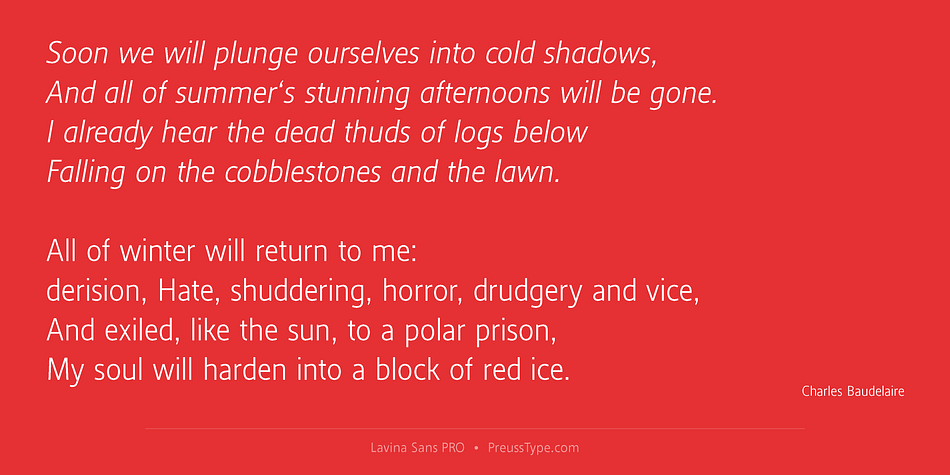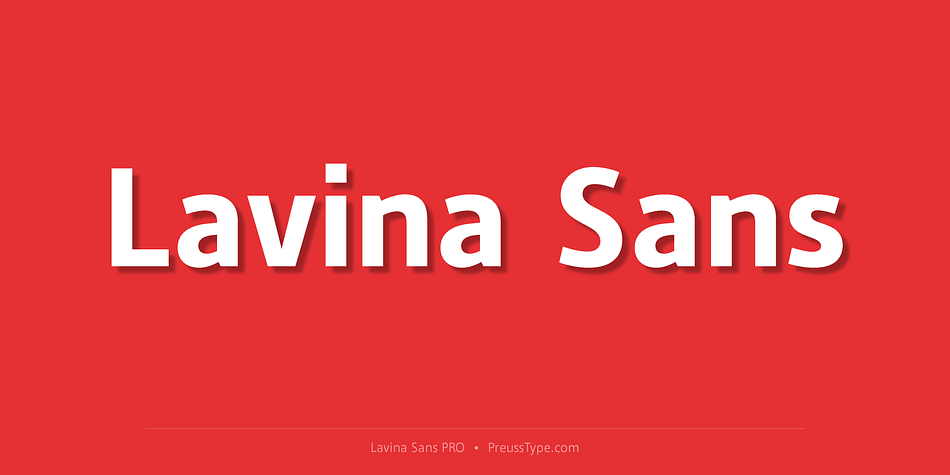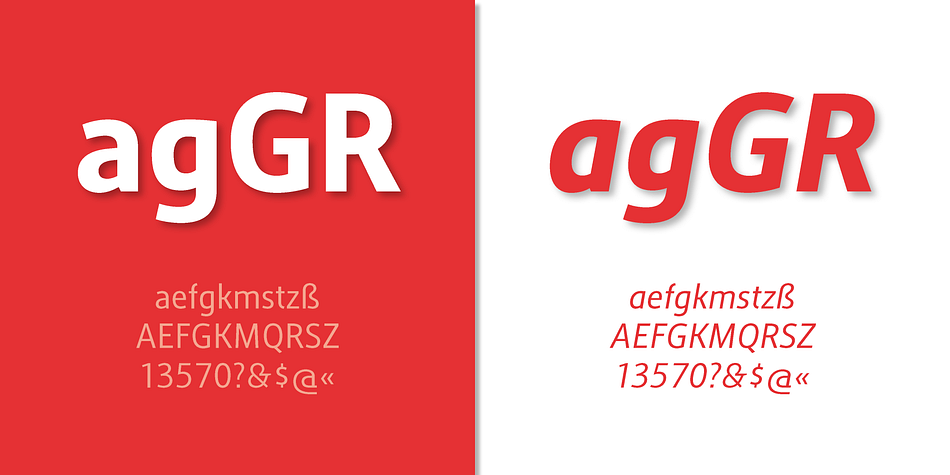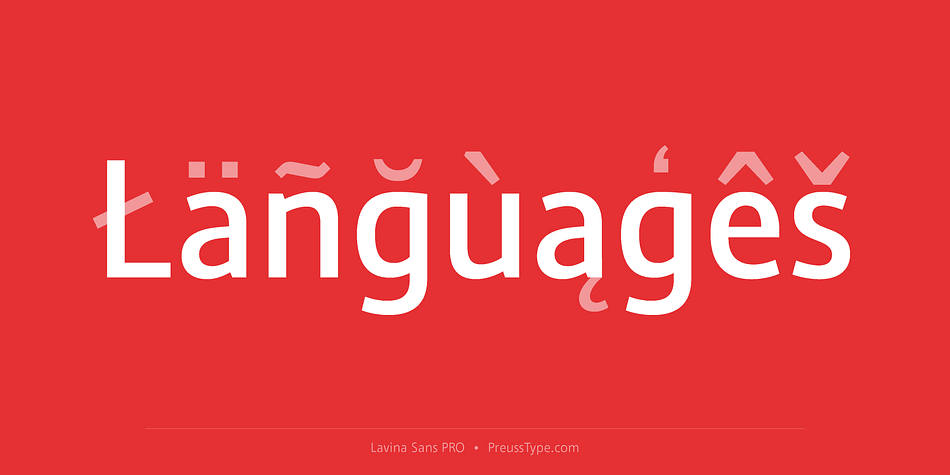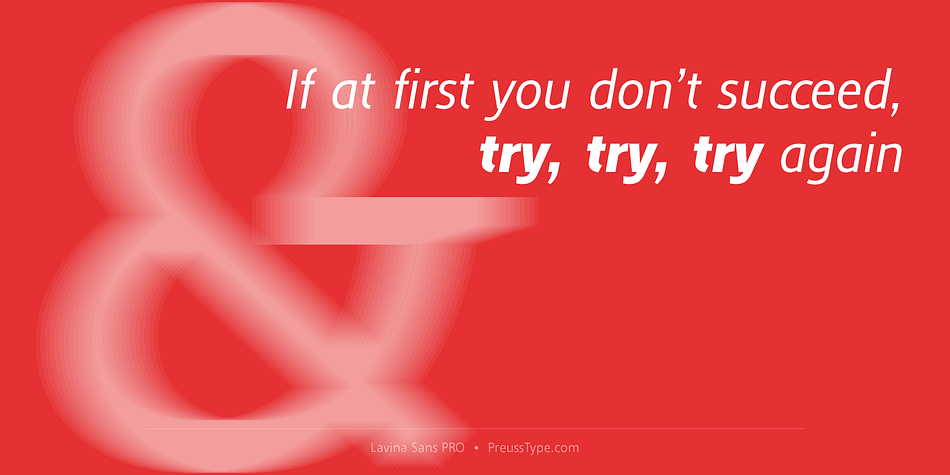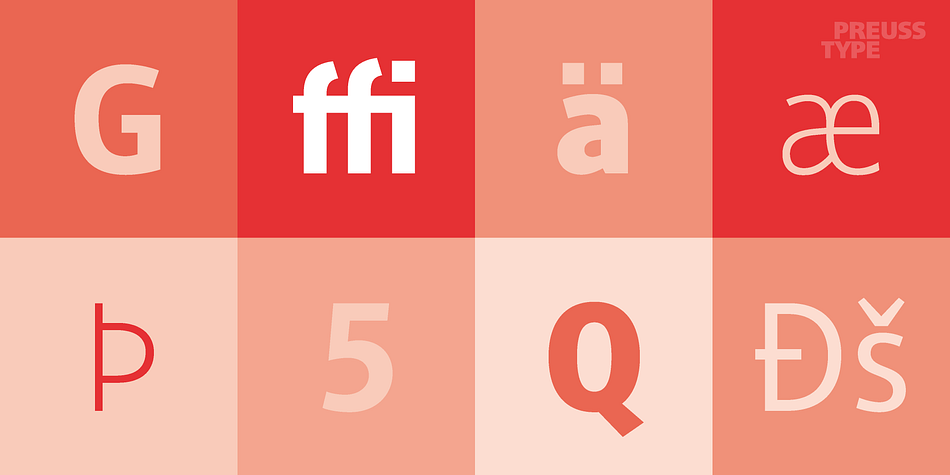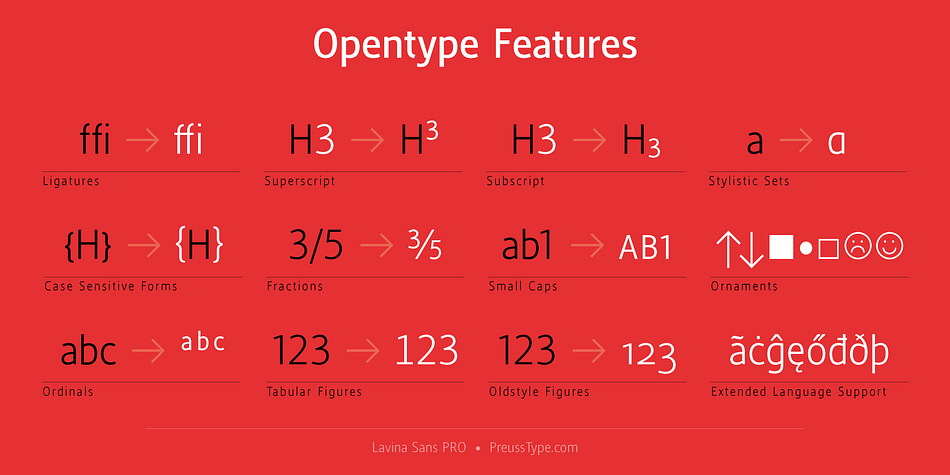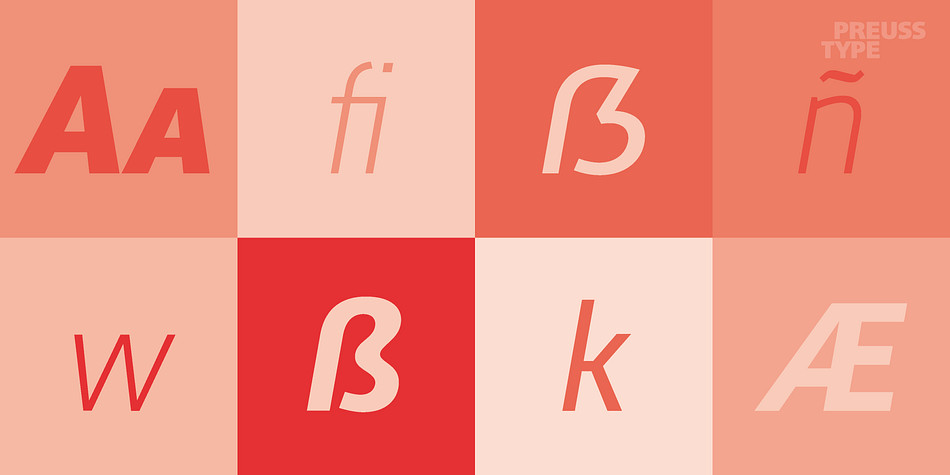
Lavina Sans PRO is a sans serif font family. This typeface has twelve styles and was published by preussTYPE.
The Lavina Family is a humanistic sans-serif with a little contrast. Also tab, prop, lining, old style and small cap figures. Its a typeface with clear and open characters.
All complicated shapes are cleaned and simplified with a bit elegance. Contains 12 fonts. Six regular and six italic. From light to ultra. A rich palette gives full freedom for creativity and bright decisions. The versatility of the sans serif typeface covers various aspects of graphic design. Web, printed materials, clothing, logos, posters, labels and much more.